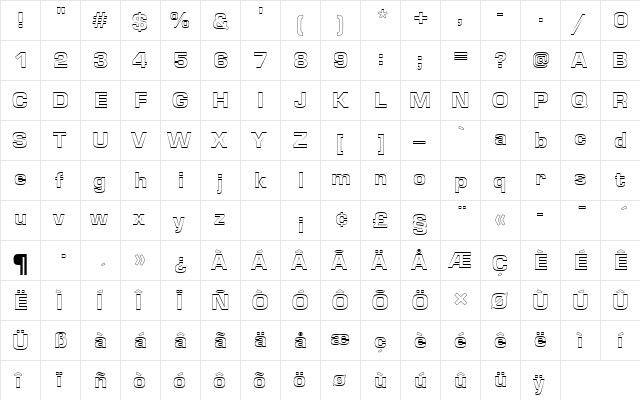
EurostileTHeaOu1 Regular
Design Context for EurostileTHeaOu1 Typeface
EurostileTHeaOu1 is a composed and adaptable typeface that performs quietly and consistently across a wide range of design contexts.